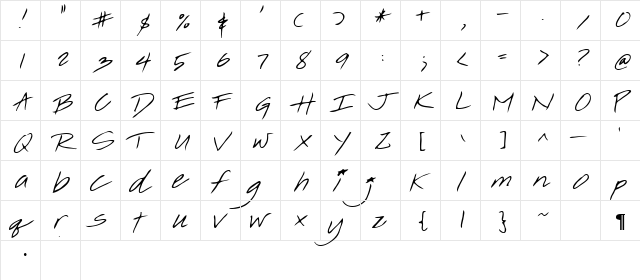
Starlet Regular
Design Context for Starlet Typeface
Starlet is a composed and adaptable typeface that performs quietly and consistently across a wide range of design contexts.